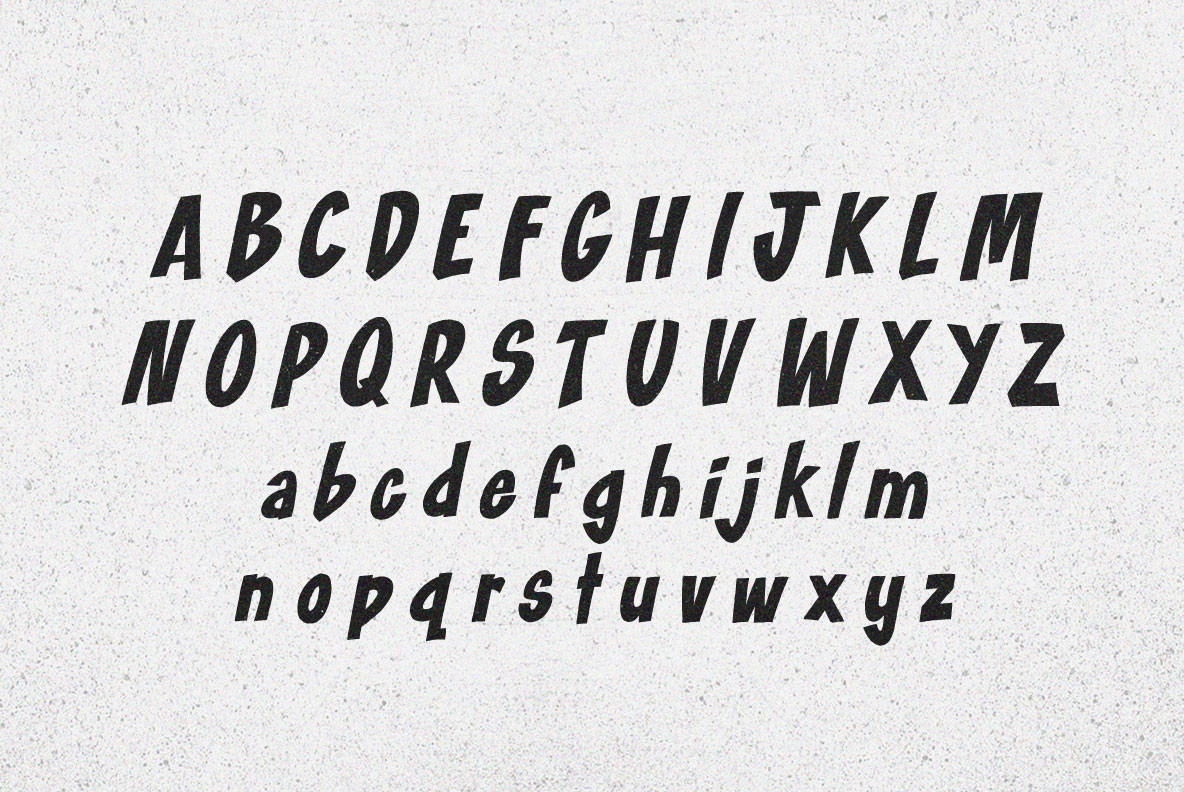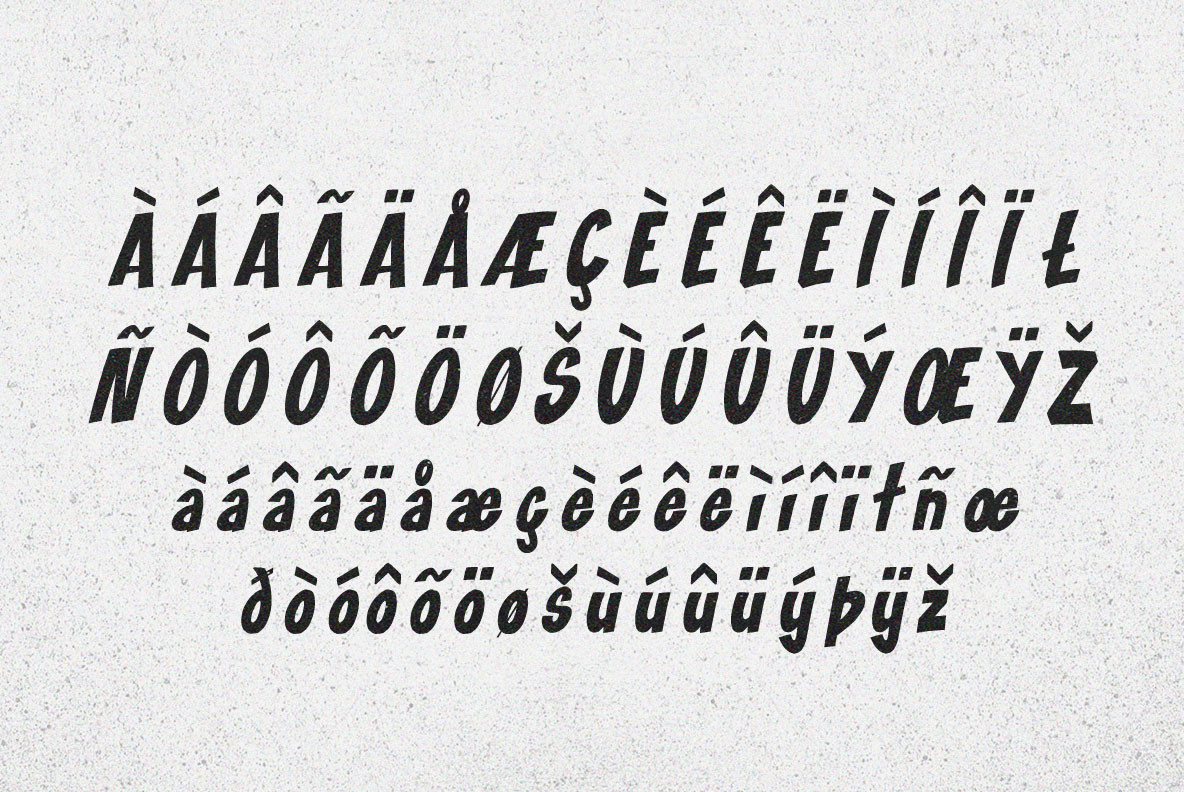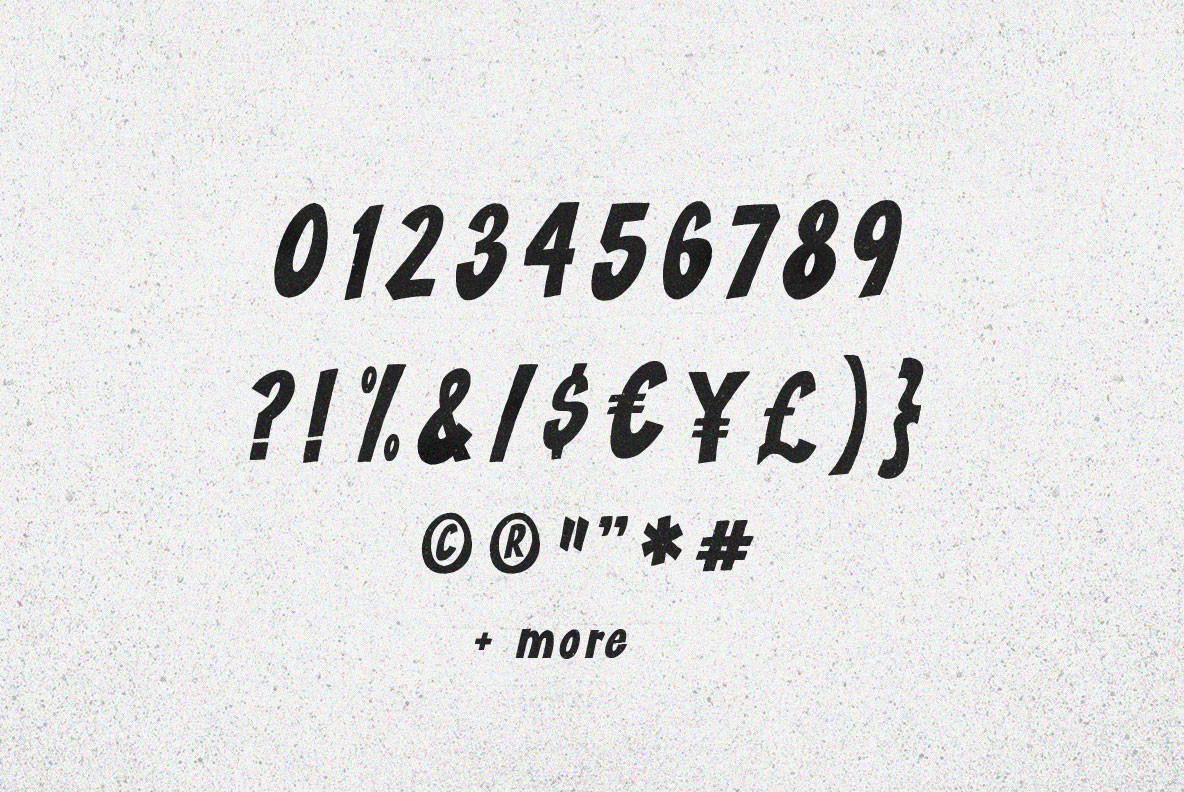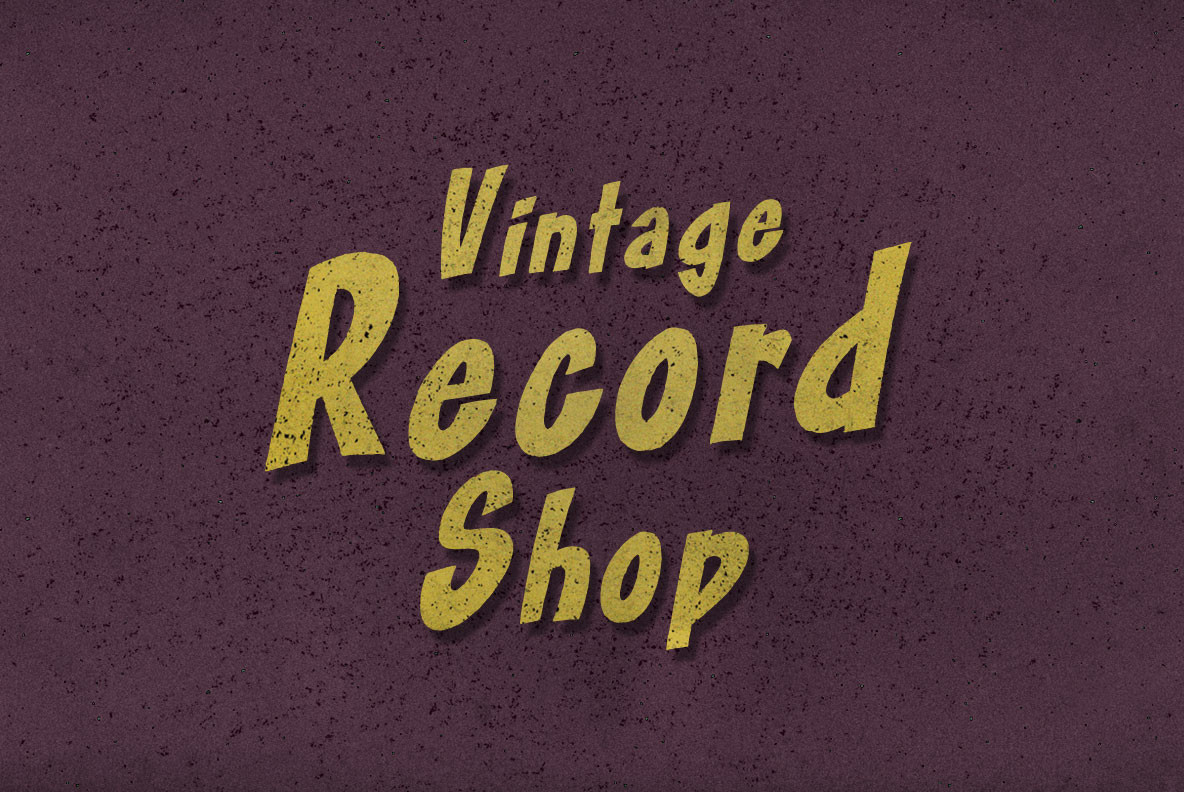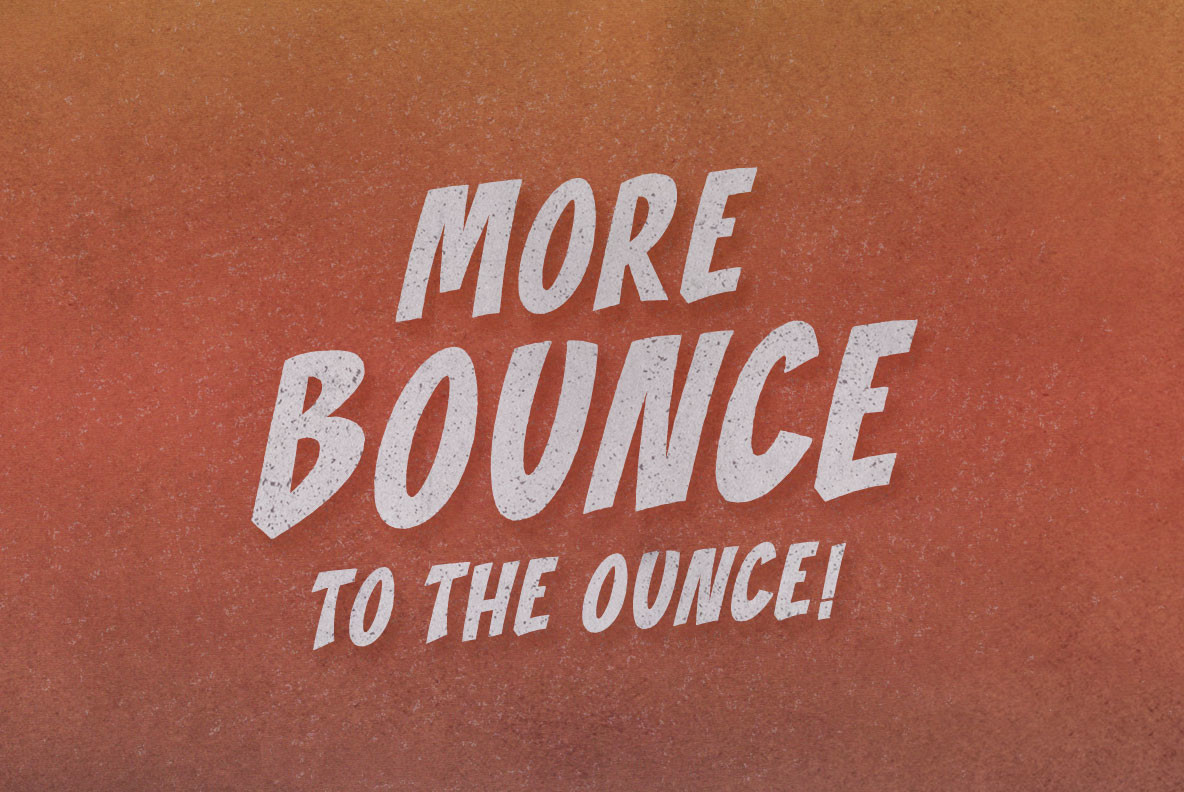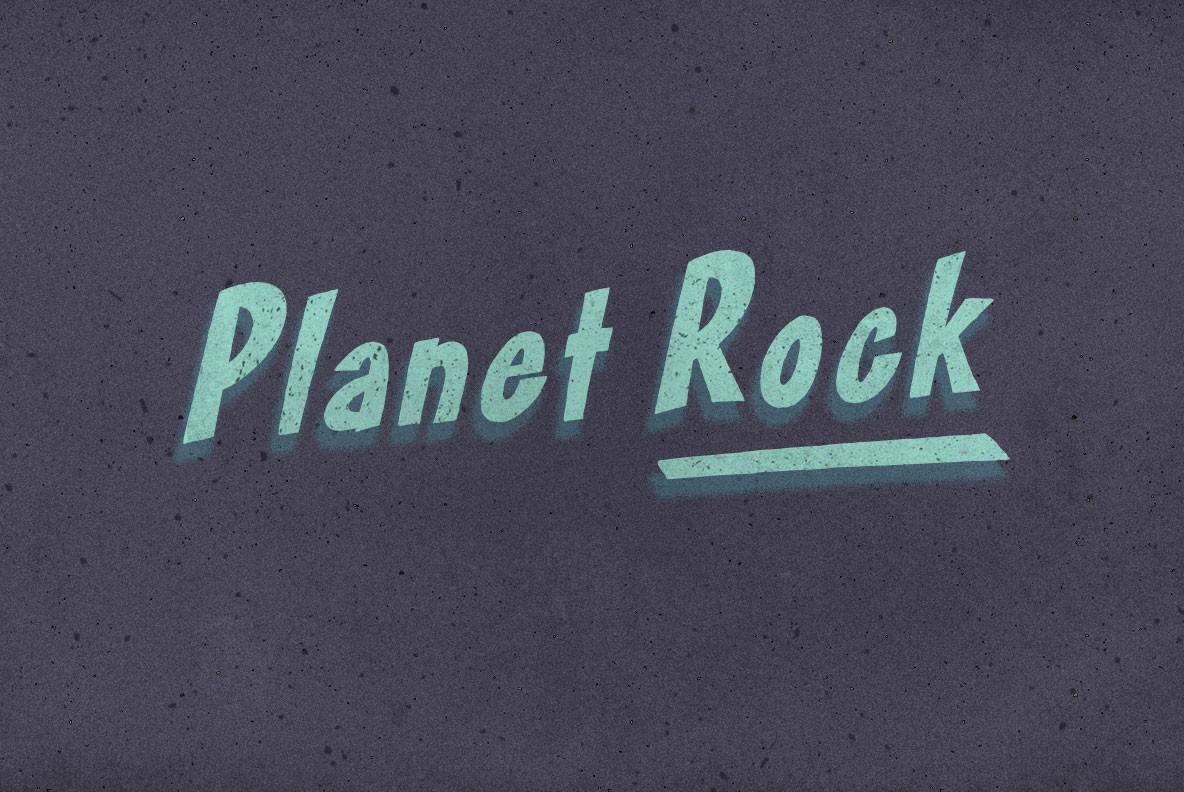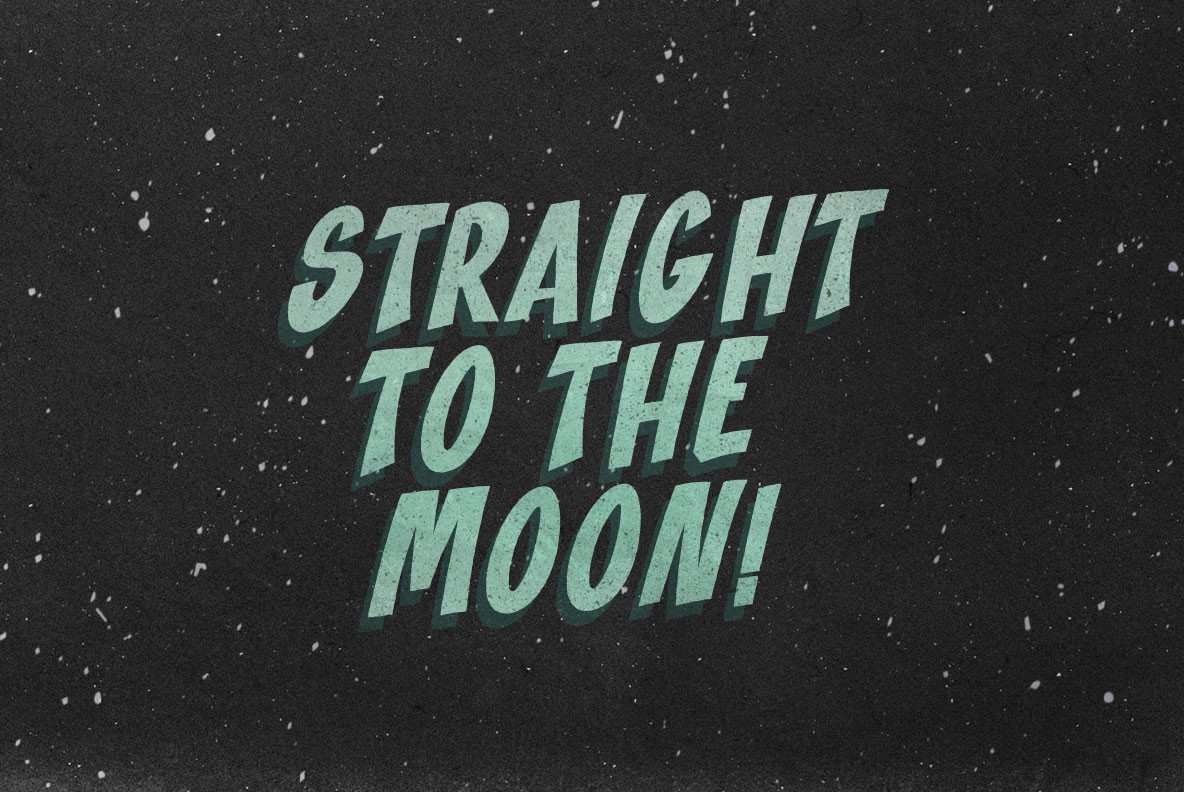
Blast Off Font
Blast Off
Driven mad beyond reason, desperate for relief from the choking insect swarms, Étienne began to Blast Off directly into his own mouth. It was an absurd display but in ripping apart space itself, our ship divorced us from reality and delivered the relief we needed.